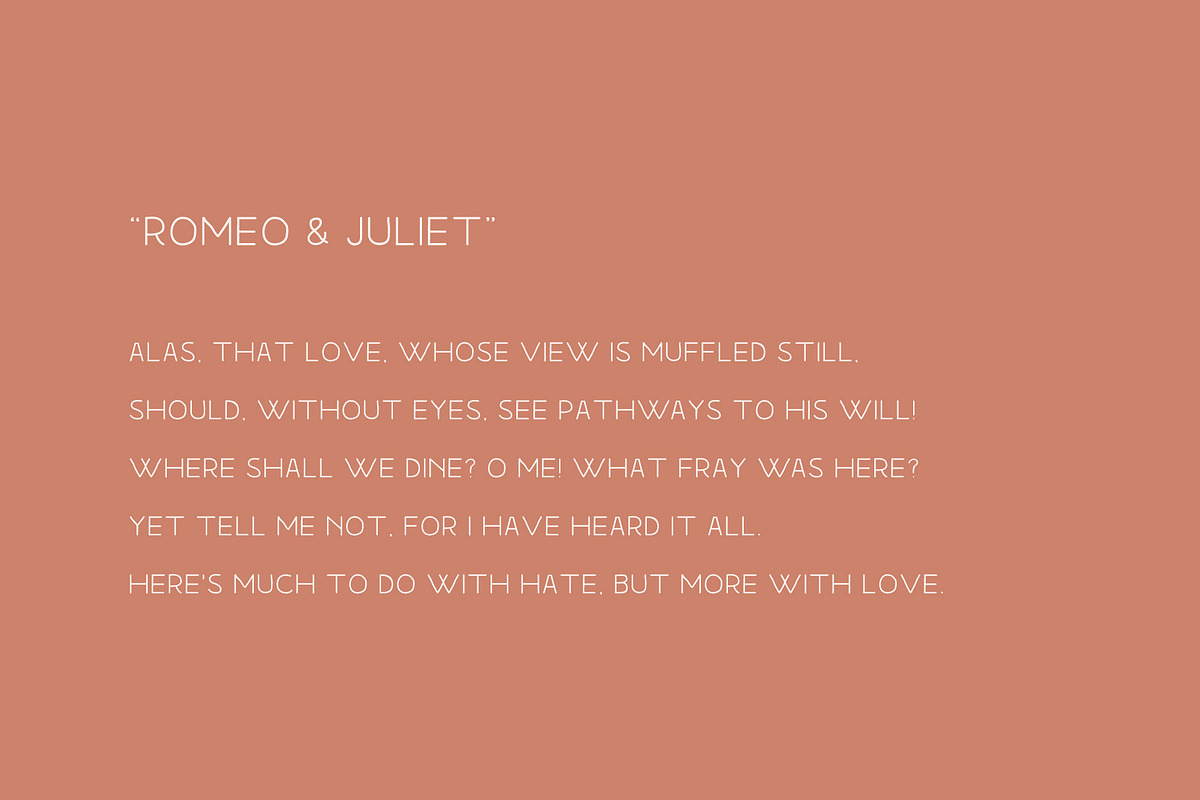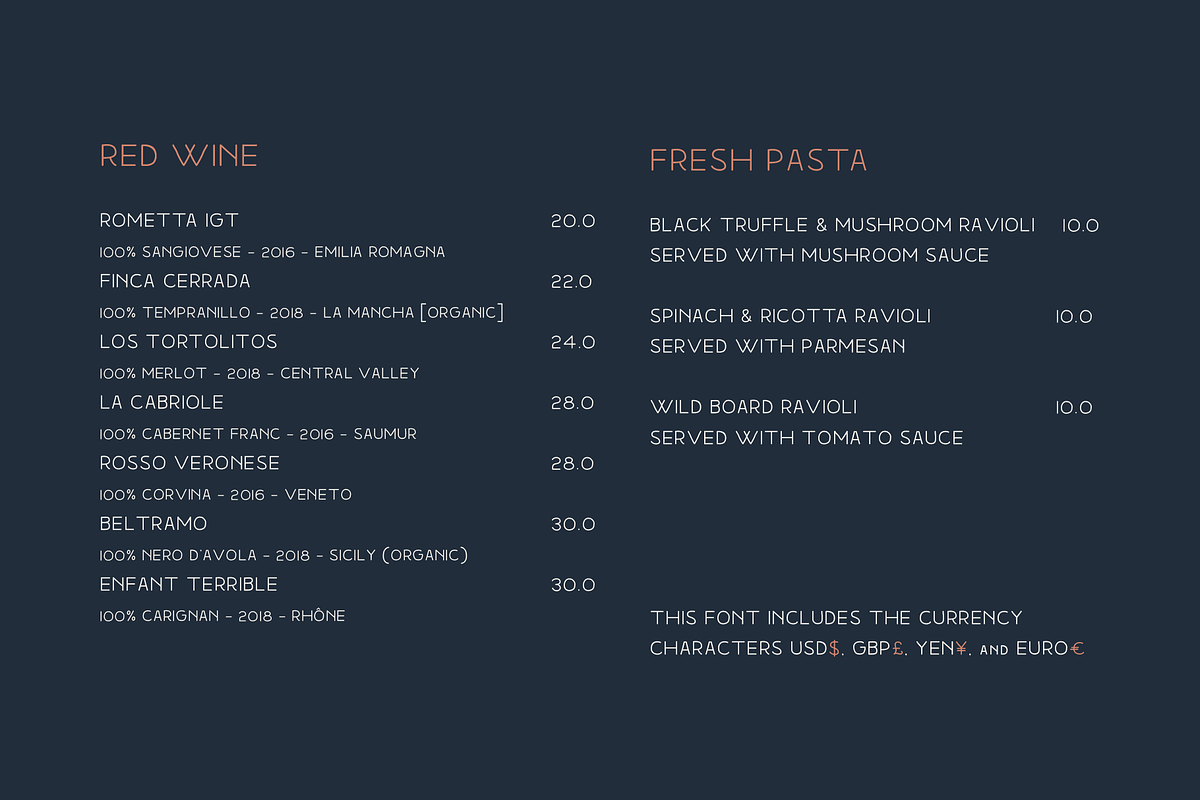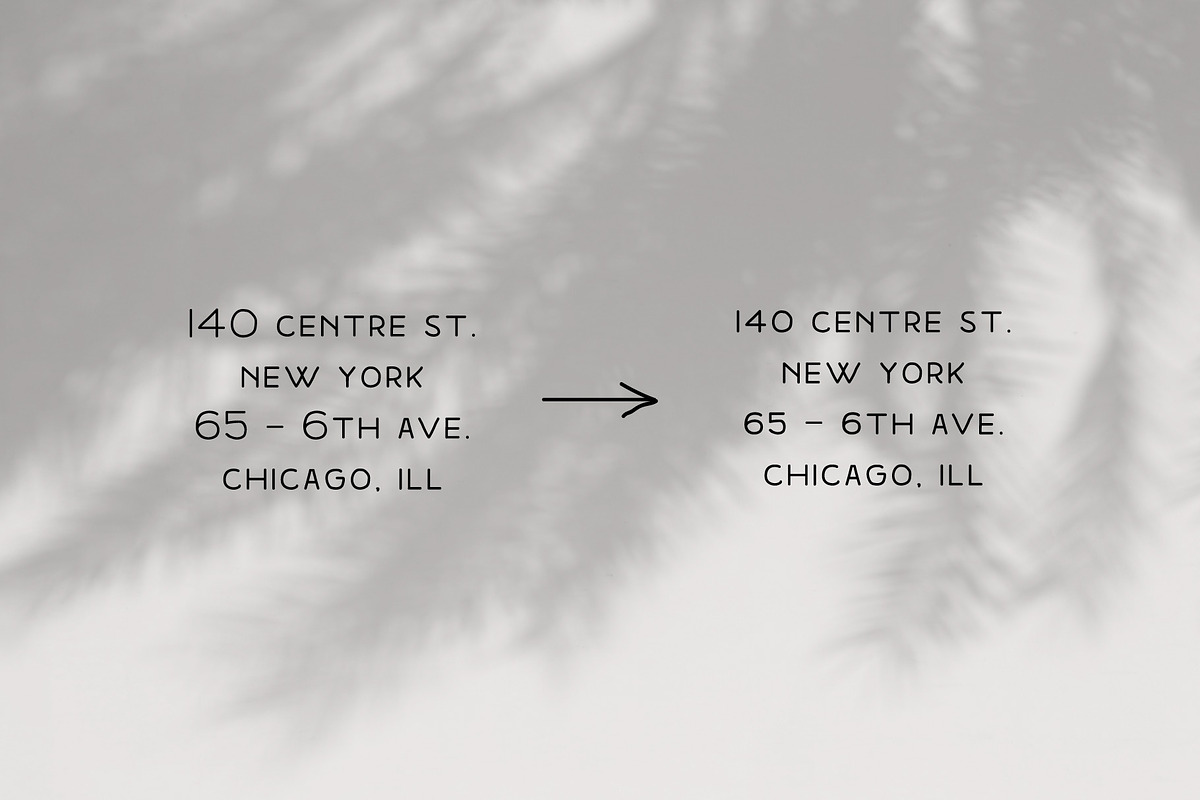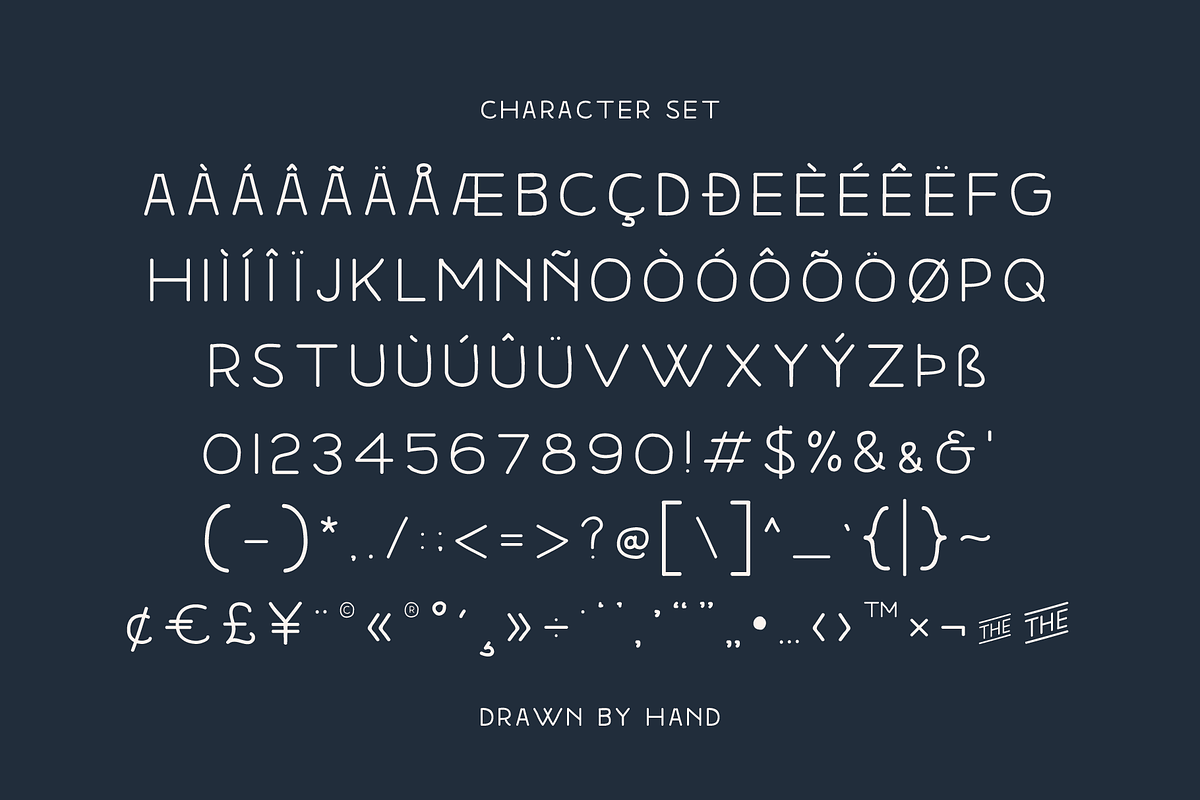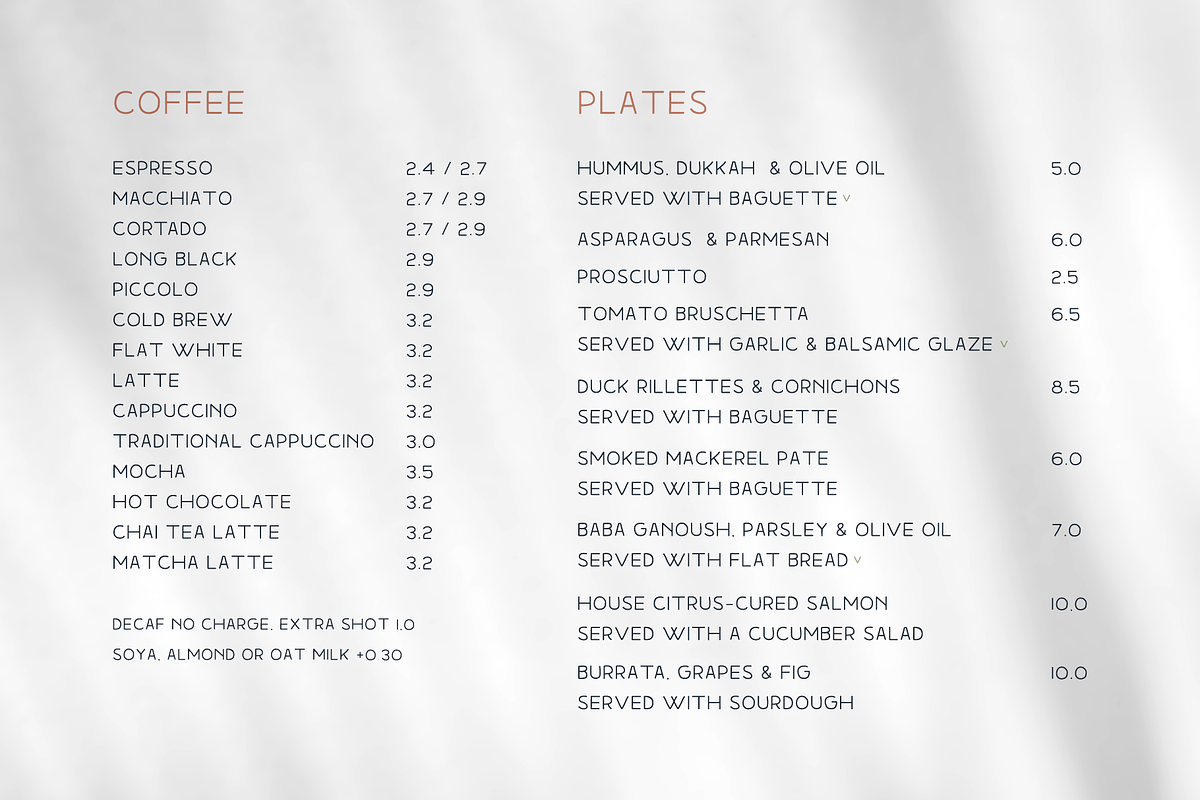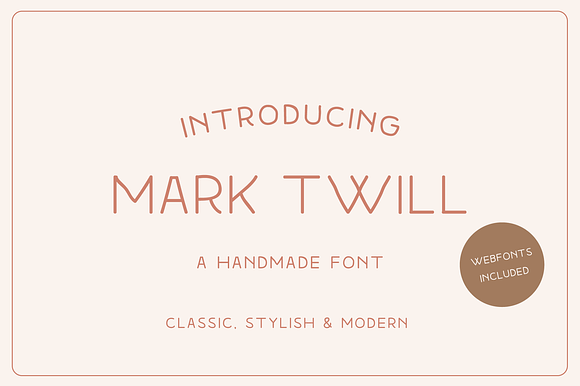
Mark Twill Font (+webfonts)
NEW Improved Kerning & WEBFONTS This handmade vintage inspired font was created, using a veltmarker so it has some nice rounded serifs. It looks amazing paired with a sans serif font, monogram and quality paper. Perfect for those wedding stationery, vintage tags or branding. The font has all the uppercase caracters and comes with all the accents and it's own set of glyphs that can be accessed via the glyphs panel in your favorite software or with OpenType features turned on.
I started drawing Mark Twill when I was looking for a vintage font but couldn't find any that fitted my taste.
I wanted to make a font that:
Is classy enough for a wedding
Has lots of special caracters
Uppercase sans serif font comes in two sizes, a wide range of different sized numbers and glyphs. All alternative characters can be accessed via the glyphs panel in your favorite software or with OpenType features turned on.
- Perfect for your wedding stationery, vintage tags or branding.
- NEW Improved Kerning & WEBFONTS This handmade vintage inspired font was created, using a veltmarker so it has some nice rounded serifs.
- The font has all the uppercase caracters and comes with all the accents and it's own set of glyphs that can be accessed via the glyphs panel
- What you get: Uppercase sans serif font comes in two sizes, a wide range of different sized numbers and glyphs.